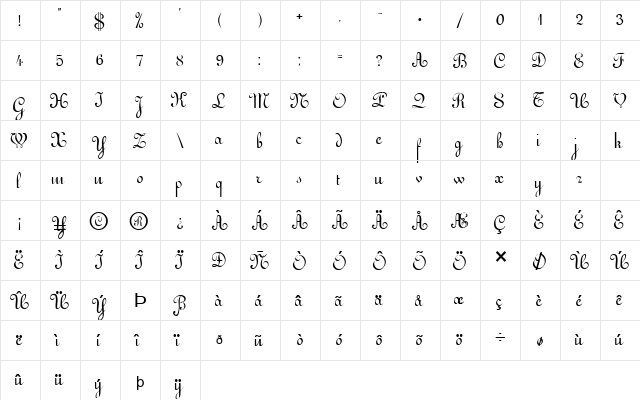
Victorian Normal Font Preview
Victorian Normal
Victorian Normal Font Details
Design Context for Victorian Typeface
Victorian is a composed and adaptable typeface that performs quietly and consistently across a wide range of design contexts.